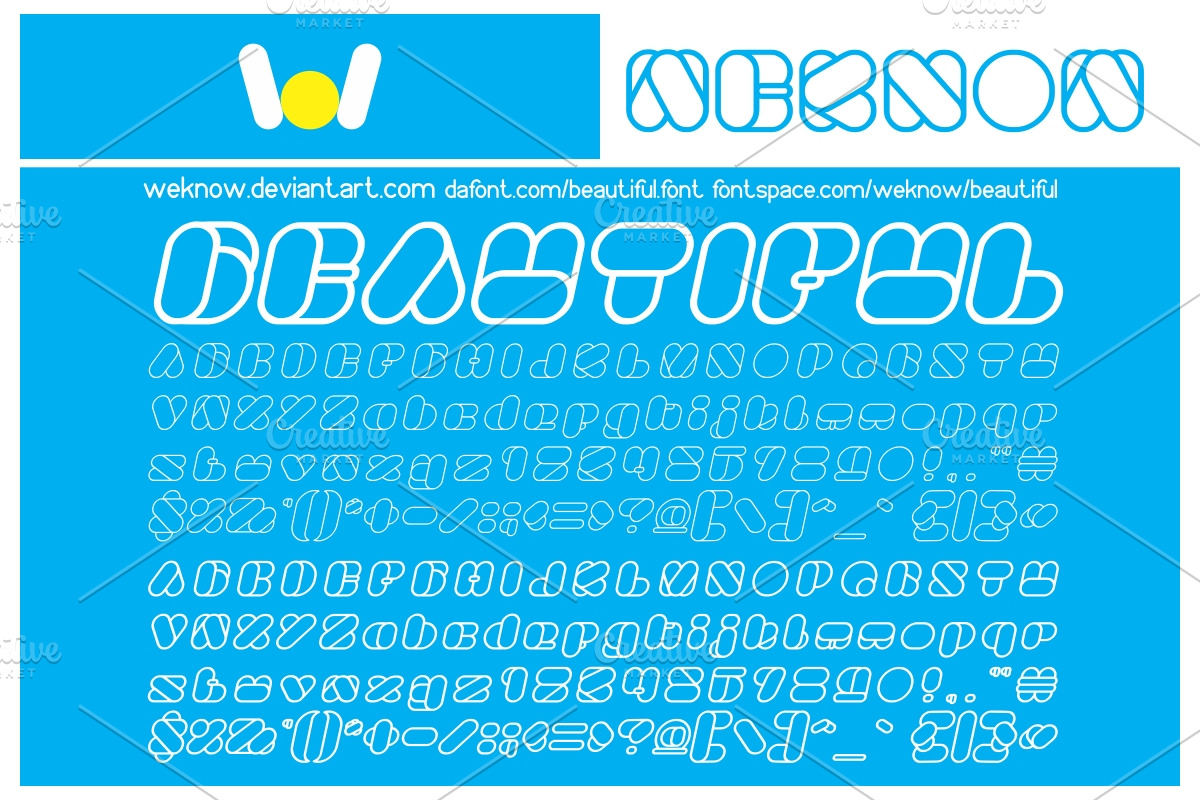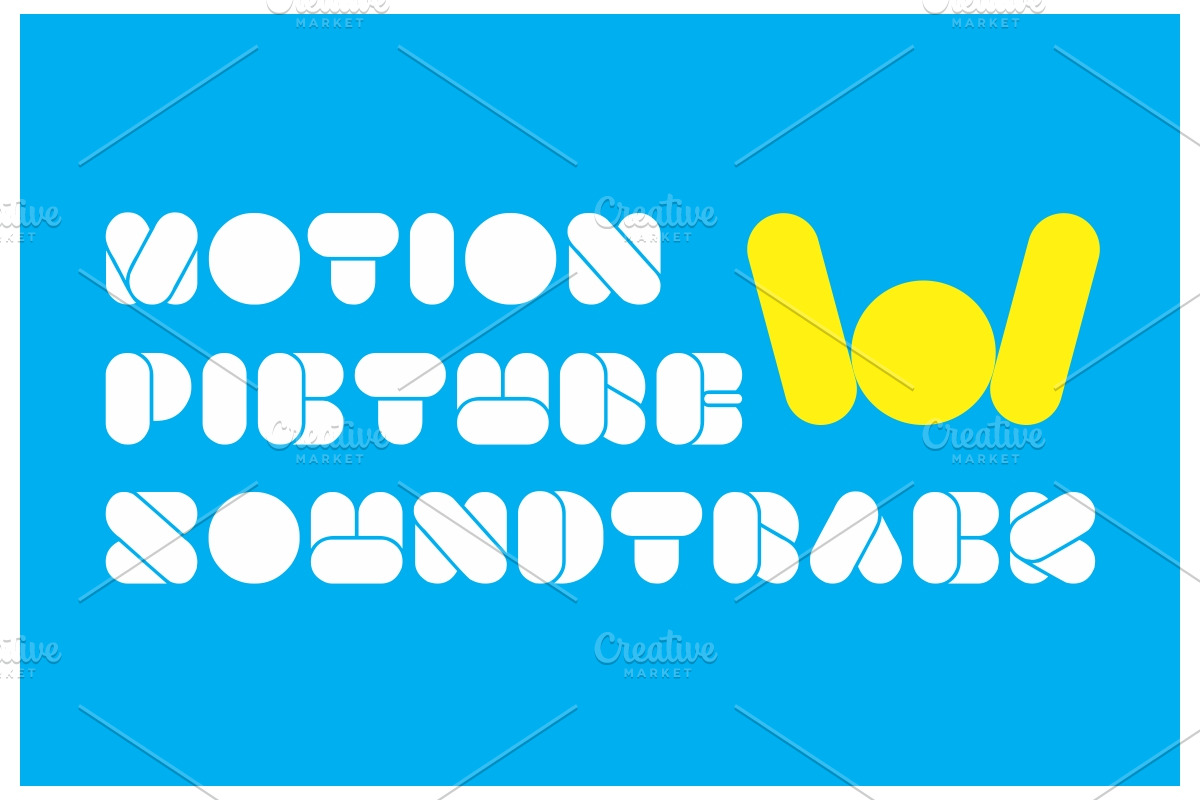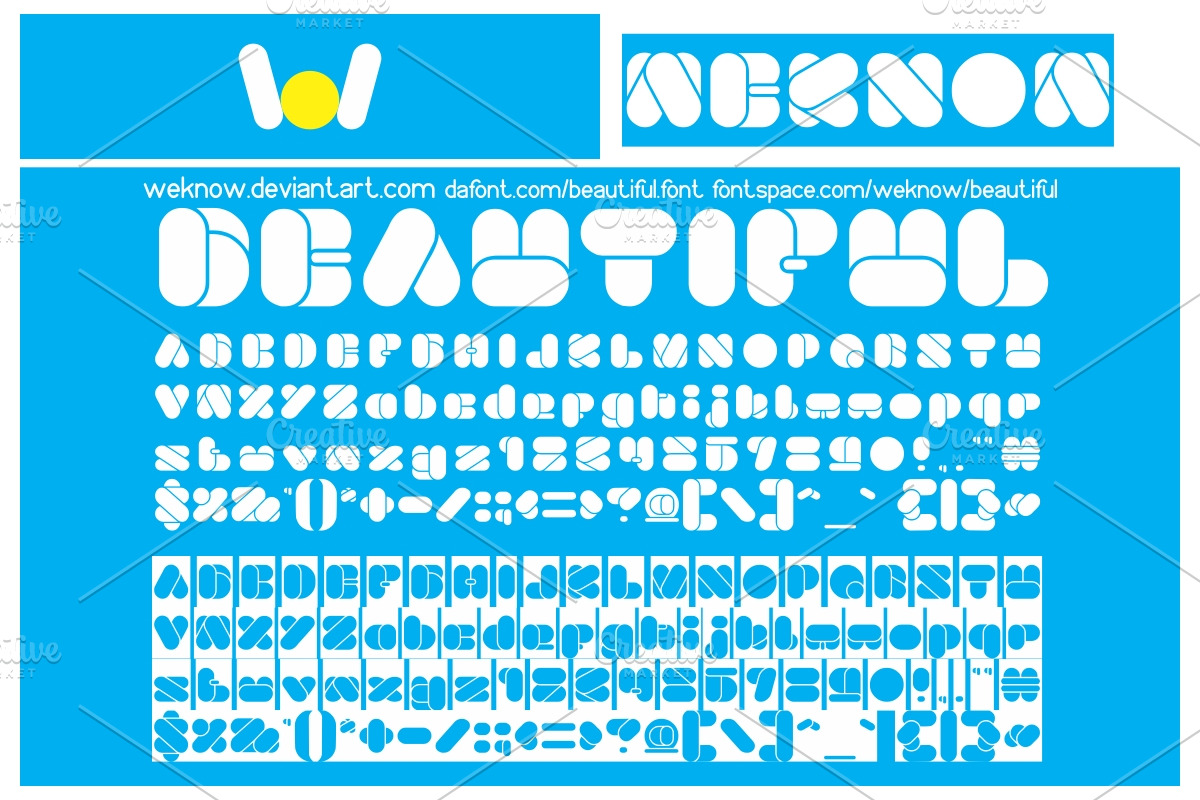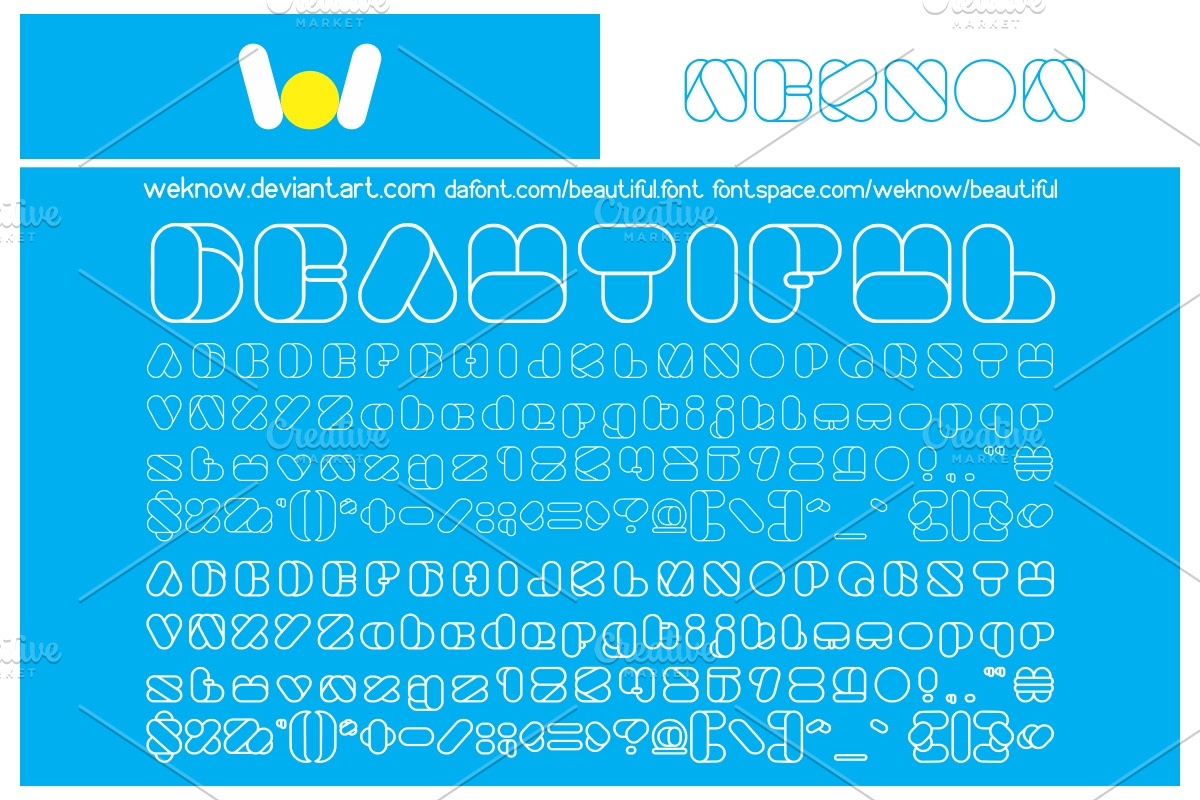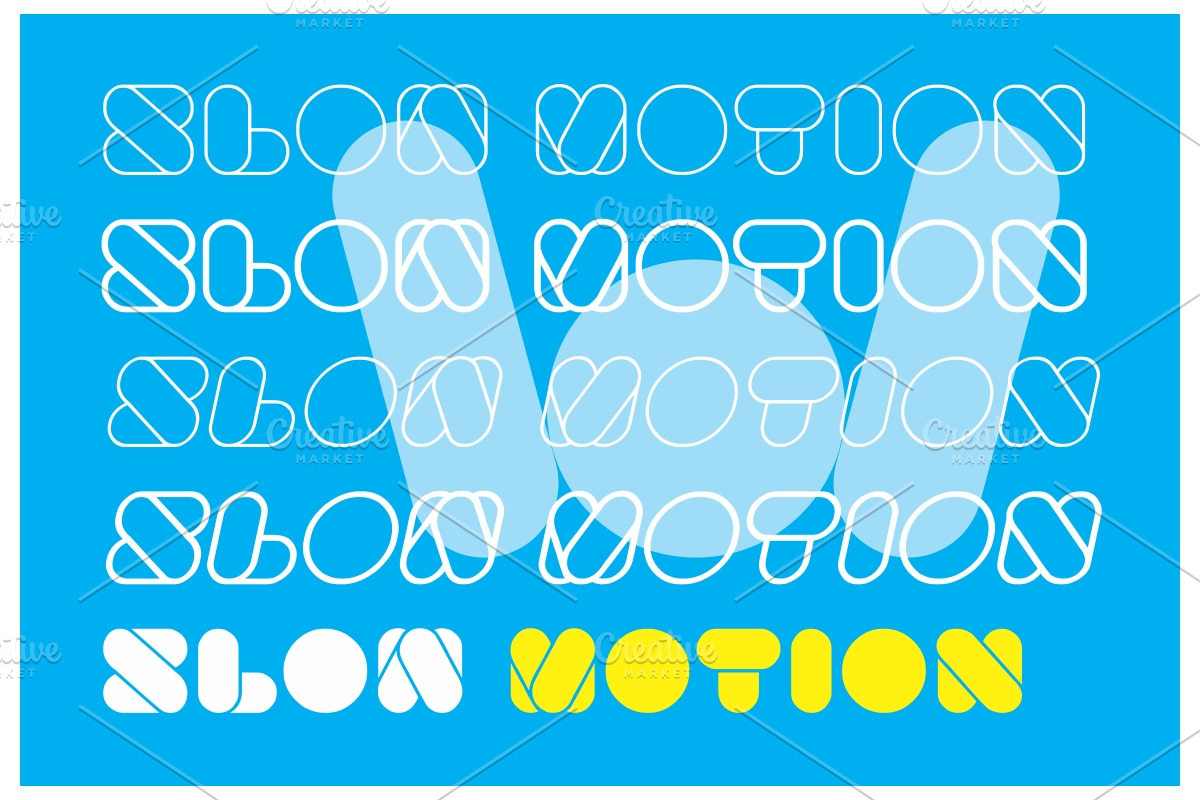
beautiful font
beautiful font by weknow is a font selected for branding, posters, packaging, typography.
Why beautiful font is worth a look
beautiful font by weknow fits naturally into Branding, posters, packaging, typography.